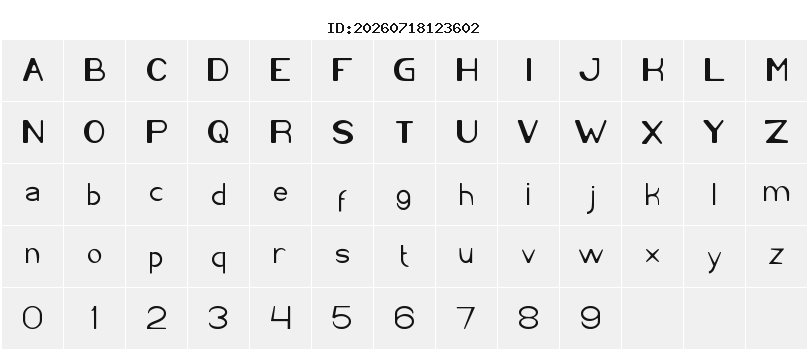
• Font Name: Cartoon Character
Cartoon Character.ttf is a modern, elegant sans-serif font designed for ultimate readability and visual harmony. Perfect for branding, headlines, web design, and print materials.